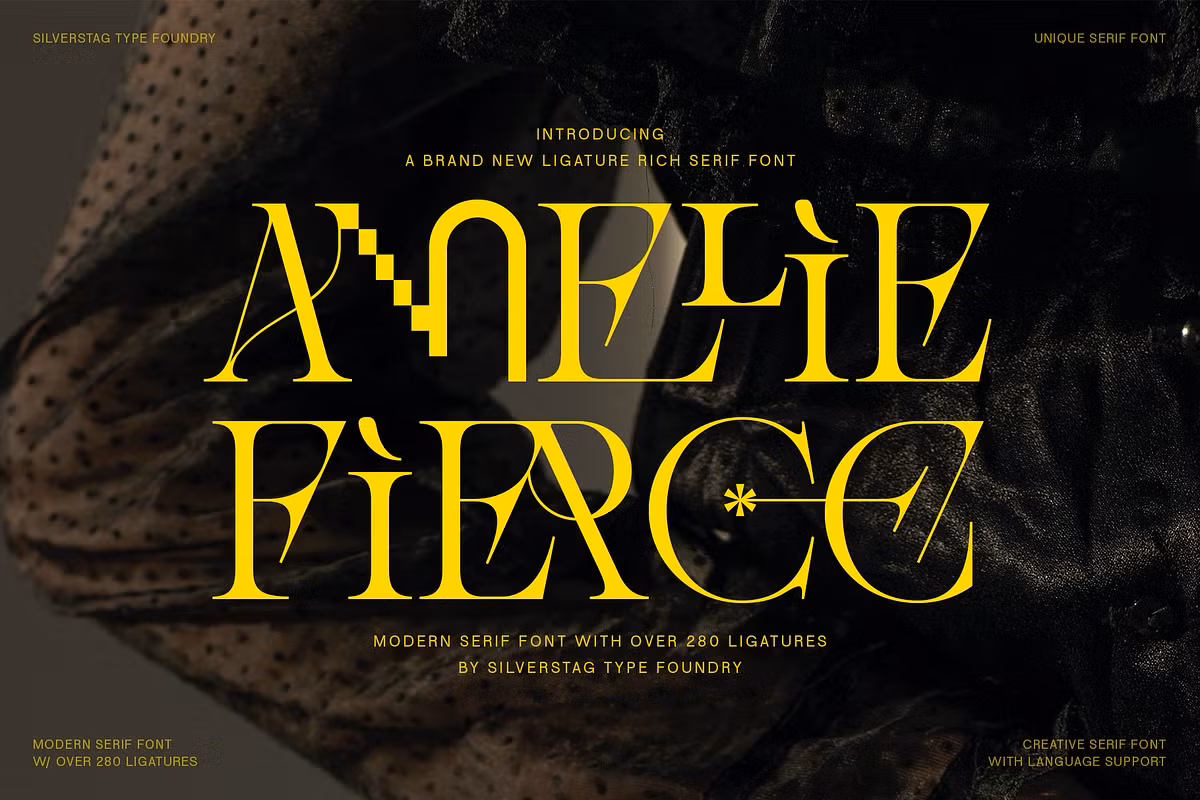
Amelie Fierce - Display Serif Font Free Download
Amelie Fierce - Display Serif Font Free Download is a bold and stylish serif typeface designed to make a statement in modern branding, magazine headlines, logos, and editorial layouts. Its sharp lines and confident curves bring a fierce elegance to any visual project. Please note that you must purchase this font for commercial use, but it is available as a free download for testing purposes. Whether you're exploring options for your next design or building a brand identity, Amelie Fierce - Display Serif Font Free Download is an excellent choice to add a unique edge to your typography collection.